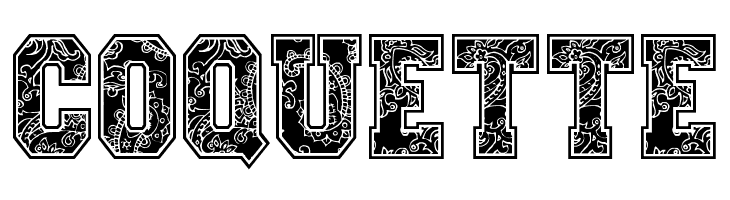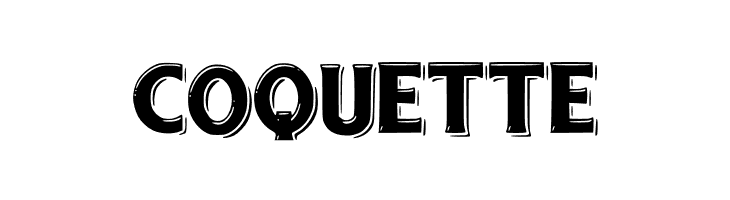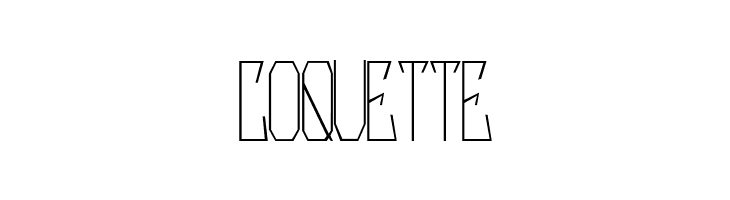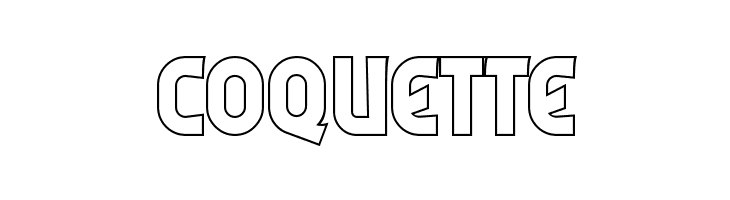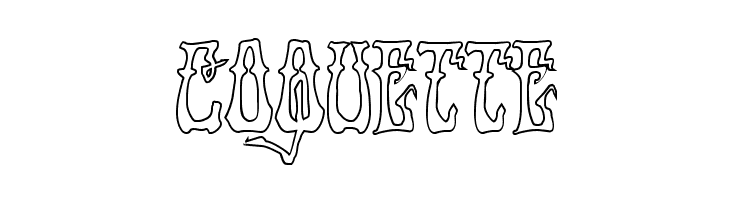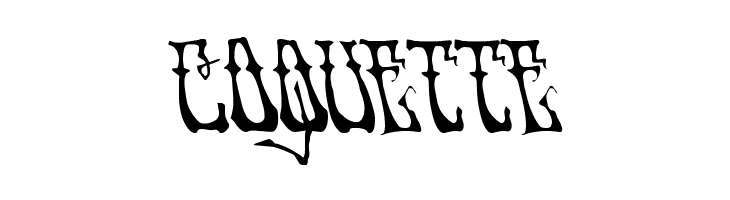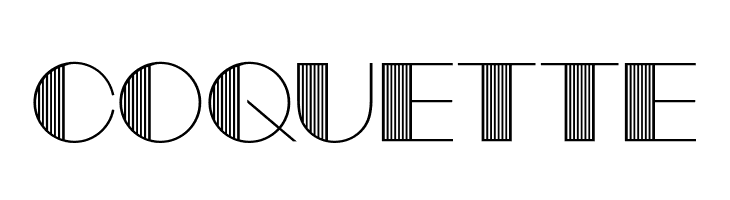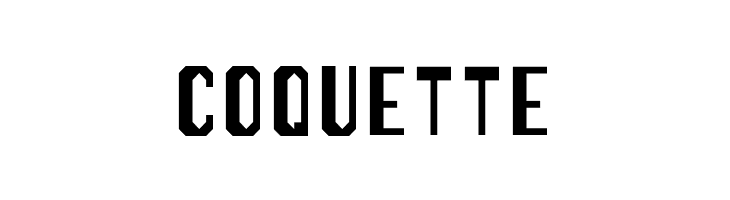
A bold, decorative font with intricate paisley patterns, ideal for standout headlines.
A bold, shadowed font with a three-dimensional effect, ideal for impactful designs.
A geometric, angular font with bold, abstract forms for a modern, edgy look.
A geometric, angular font with a futuristic and edgy design.
A bold, decorative font with a vintage, outlined style.
A bold, hollow, geometric font with a three-dimensional outline effect.
An artistic outline font with a bold, decorative style and intricate detailing.
A decorative and artistic font with bold, intricate designs and whimsical flair.
A modern, linear-patterned decorative font with geometric shapes.